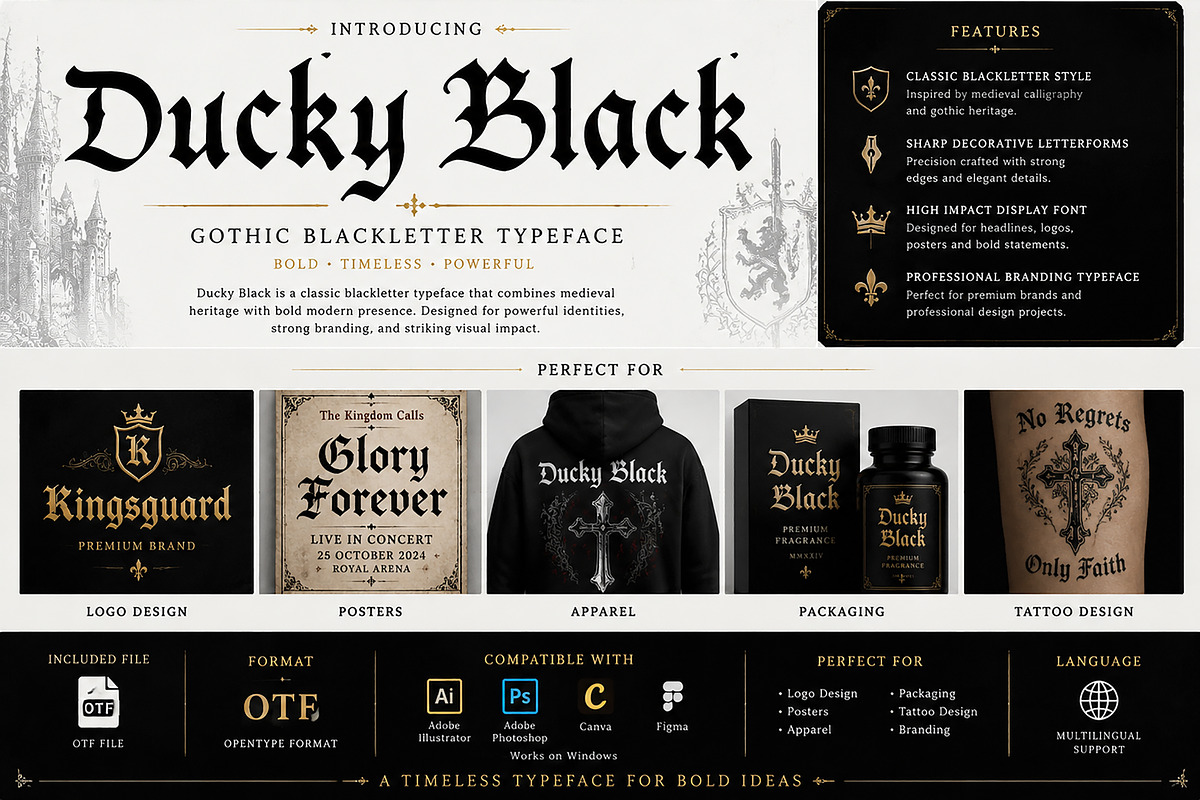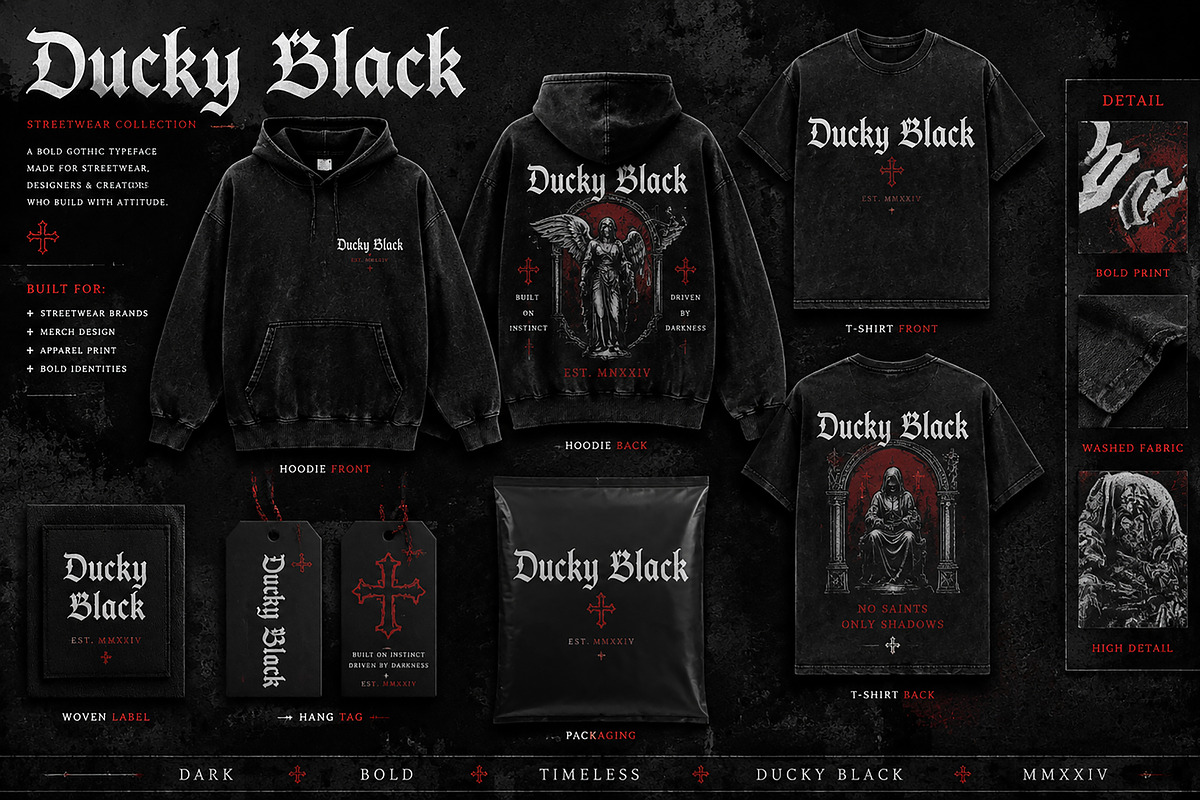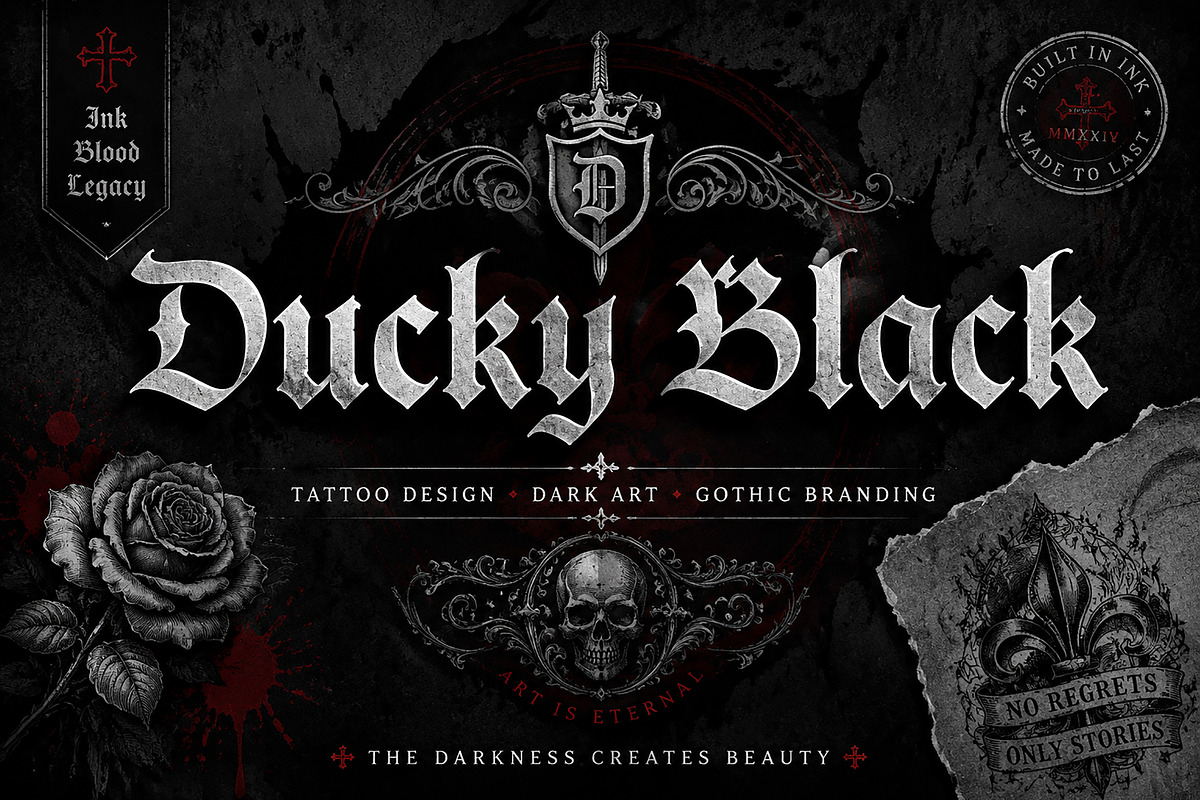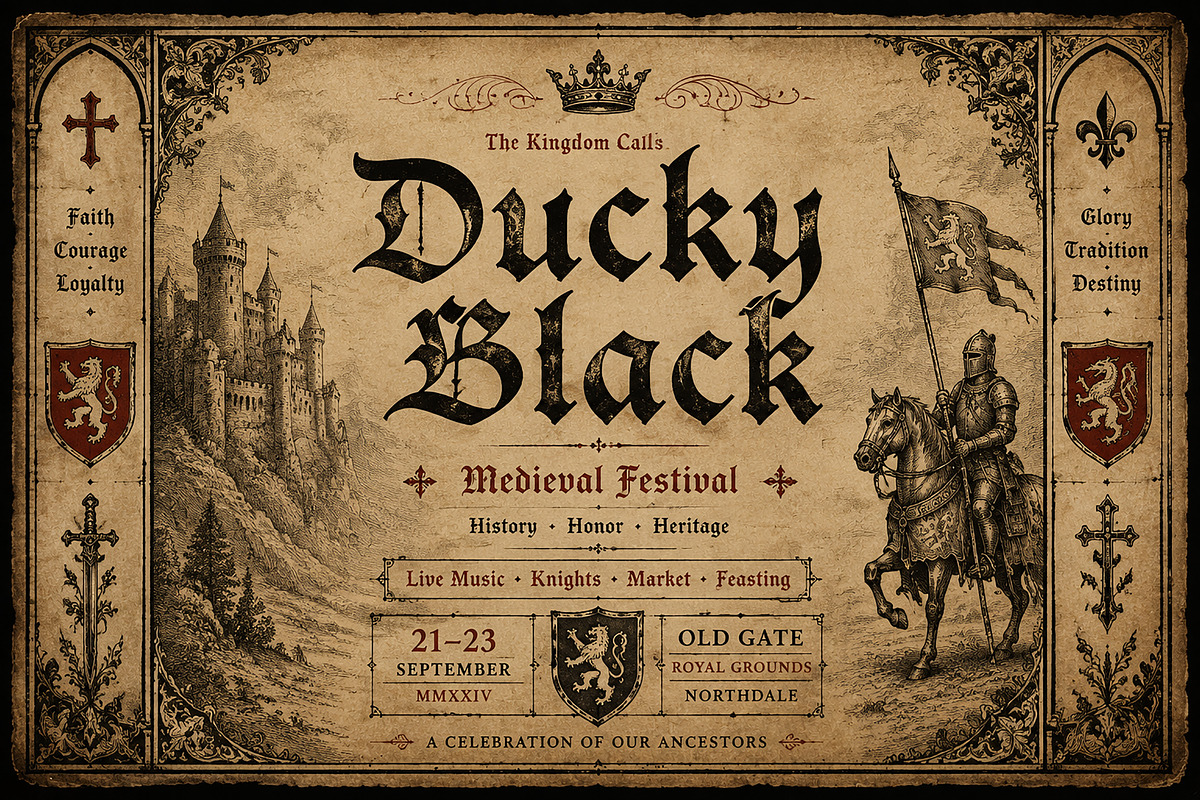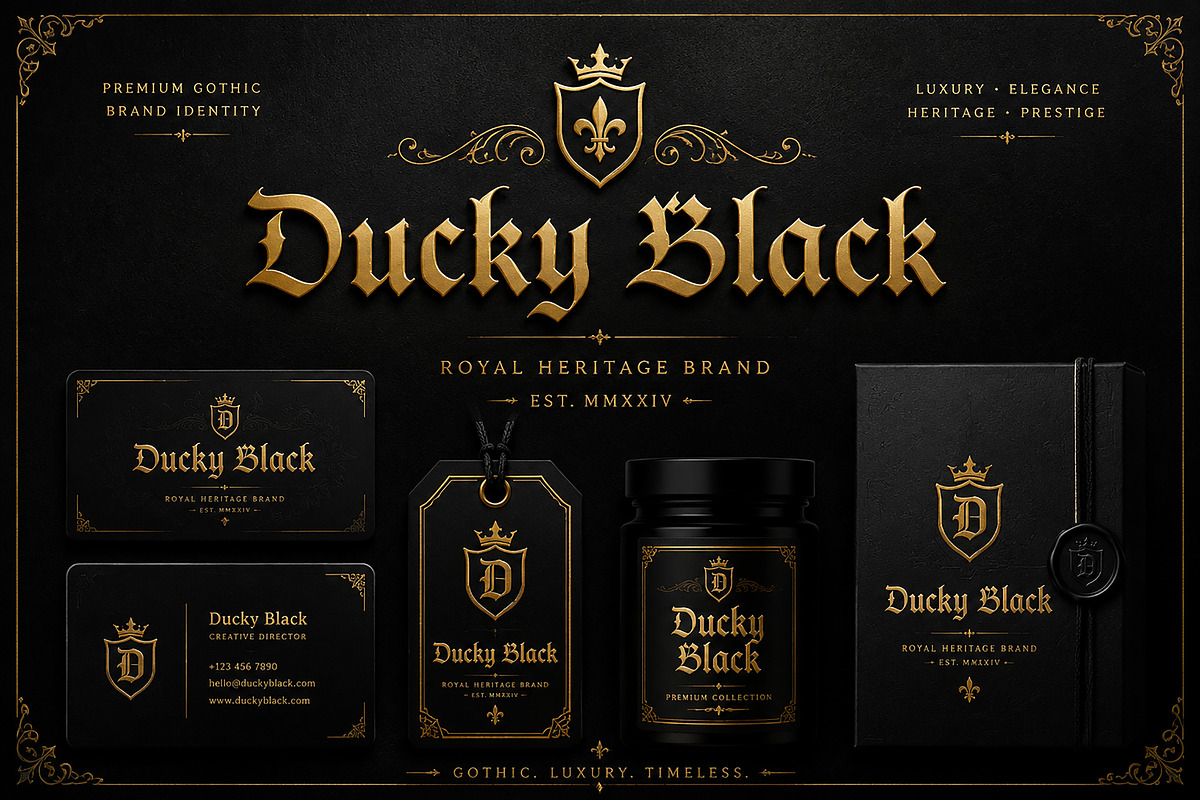
Ducky Black
Ducky Black – Gothic Blackletter Display Font
## Product Description
Ducky Black is a bold gothic blackletter display font created for designs that demand a dark, powerful, and unforgettable visual identity.
Inspired by classic blackletter typography, tattoo culture, medieval aesthetics, and modern dark branding, Ducky Black combines dramatic letterforms with a strong handcrafted character. Its striking appearance makes it an excellent choice for projects where ordinary typography simply isn't enough.
Whether you're creating a tattoo studio logo, streetwear graphic, album cover, poster, apparel design, packaging, or gothic brand identity, Ducky Black helps your work stand out with an intense and premium look.
### Perfect For
* Tattoo studio branding
* Gothic logo design
* Dark and luxury branding
* Streetwear and apparel
* T-shirt graphics
* Band and music artwork
* Album and cover designs
* Posters and flyers
* Product packaging
* Labels and badges
* Barbershop branding
* Motorcycle and biker graphics
* Vintage-inspired designs
* Medieval-themed artwork
* Dark editorial titles
* Social media graphics
* Gaming and entertainment branding
* Merchandise designs
### Font Style
Ducky Black features a dramatic Gothic / Blackletter personality with sharp details and an old-world visual influence. It works especially well in headlines, logos, titles, badges, and other display-focused typography.
### Recommended Usage
For the strongest visual impact, use Ducky Black for:
Logos • Headlines • Tattoo Designs • Apparel • Posters • Packaging • Branding • Album Covers • Badges • Merchandise • Dark Artwork
Give your next project the attitude of traditional blackletter typography with a bold contemporary edge.
Ducky Black — built for dark identities, powerful statements, and designs made to be remembered.